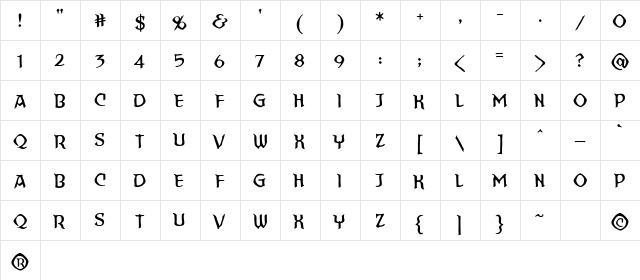
StraightToHell BB Regular
| Foundry | Nate Piekos. Blambot.com |
| Designer | Nate Piekos |
| Year | 2010 |
Design Context for StraightToHell BB Typeface
StraightToHell BB is a composed and adaptable typeface that performs quietly and consistently across a wide range of design contexts.